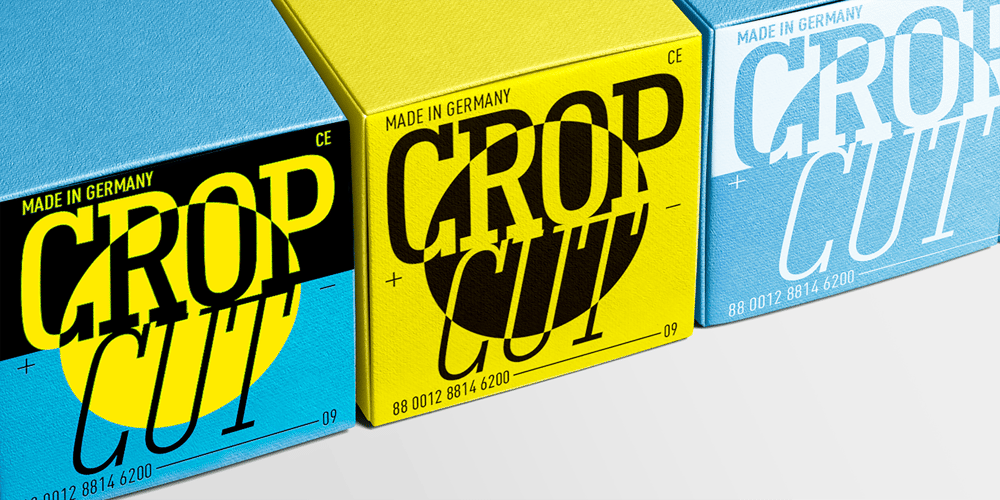
FF DIN Slab Variable
FF DIN Slab Variable font
FF DIN Slab Variable Font Family was designed by Albert-Jan Pool, Antonia Cornelius and published by FontFont. FF DIN Slab Variable contains 2 styles and family package options. FF DIN: the famous, faithful and first revival of DIN 1451. FF DIN originates in the lettering models from the German standard DIN 1451, and is considered the perfect standard typeface due to methodical and engineered design. FF DIN Slab is a robust compliment to the FF DIN family. Designed by Antonia Cornelius and Albert-Jan Pool, it offer designers tools to create greater rhythm and design depth. FF DIN Slab’s proportions have been meticulously aligned with its Sans origins, offering the perfect balance between positive and negative space. The serifs are assertive, sturdy and balanced, they are engineered to emphasis a strong horizontal flow through text, a grounded utility and assurance in headlines. The result of this attention to detail is a typeface that harmonizes beautifully with other FF DIN styles. Pushing font technology to its limits, FF DIN Slab is also available as a Variable font. Allowing creatives to design hyper specific variations which thrive in any design space, and even seamlessly animate movement from one state to the next. FF DIN Slab distinctively carries on its parent’s DNA, speaks the same native language — but with a strong peculiar dialect. It expands the DIN family worthily — independent but integrated — and opens totally new possibilities of uses with the whole DIN family.